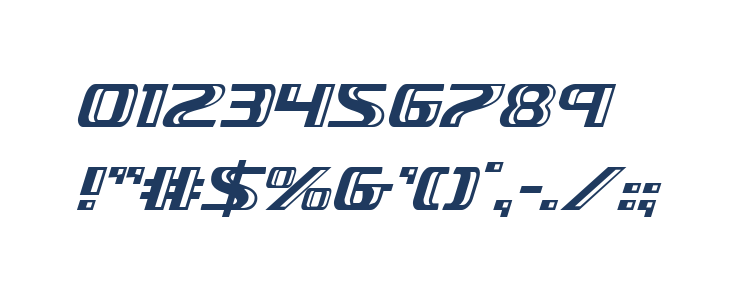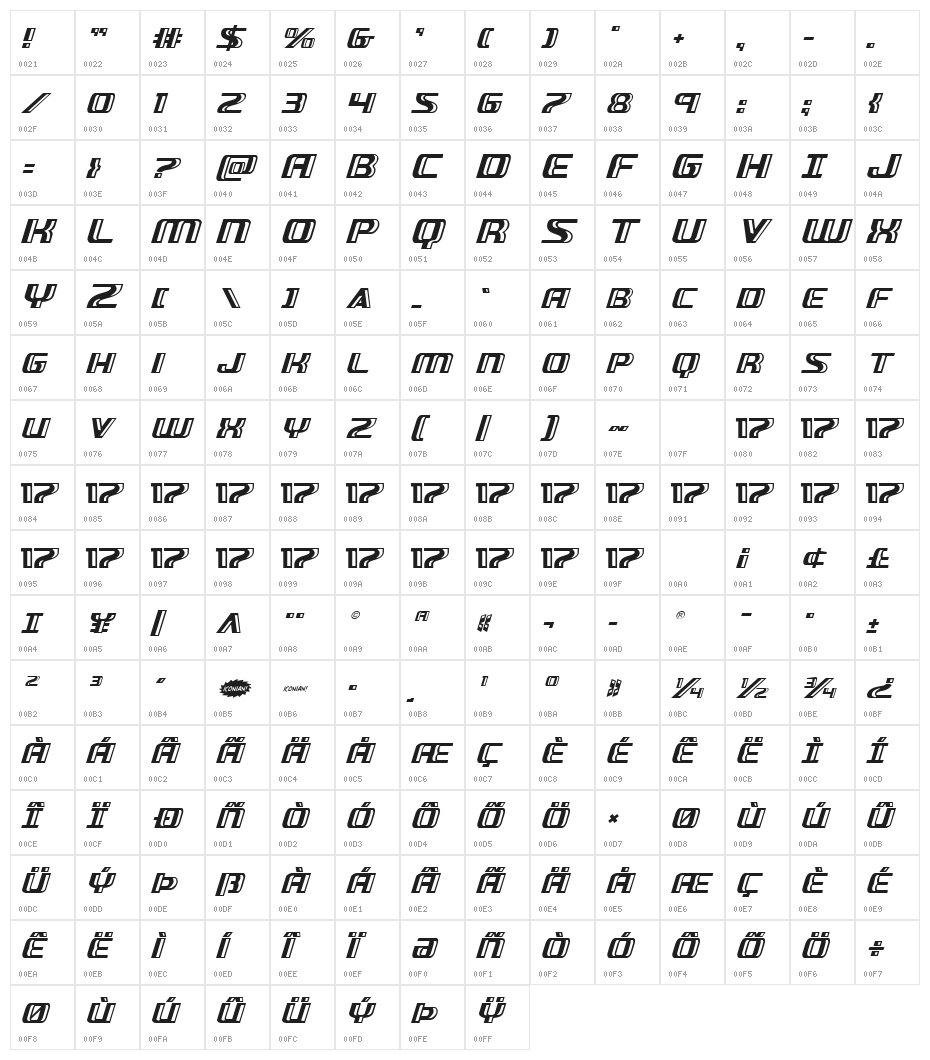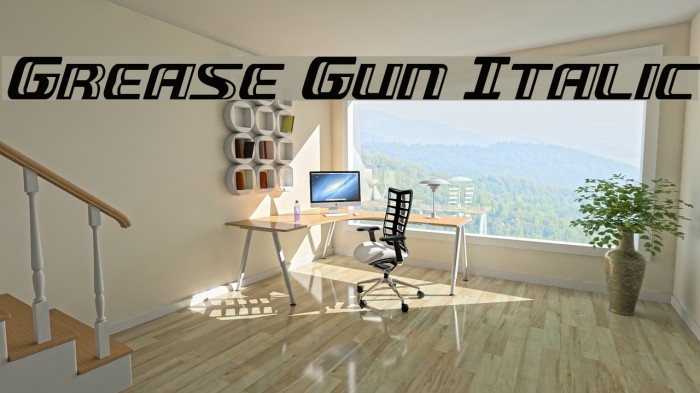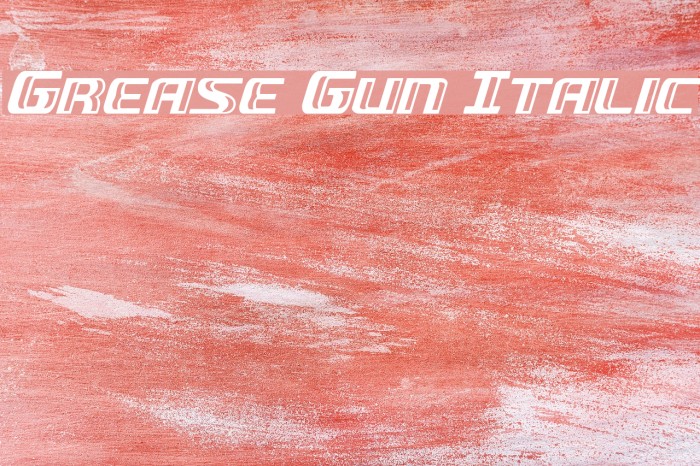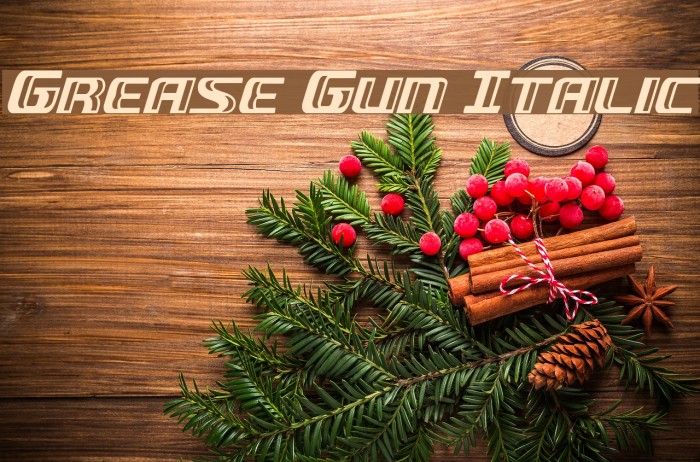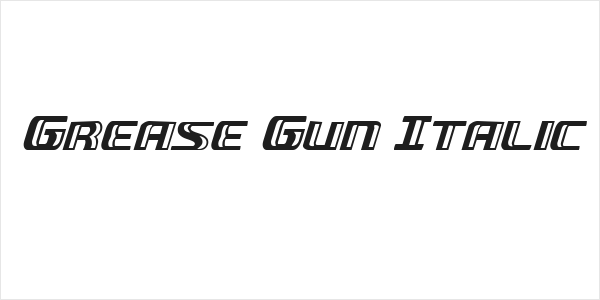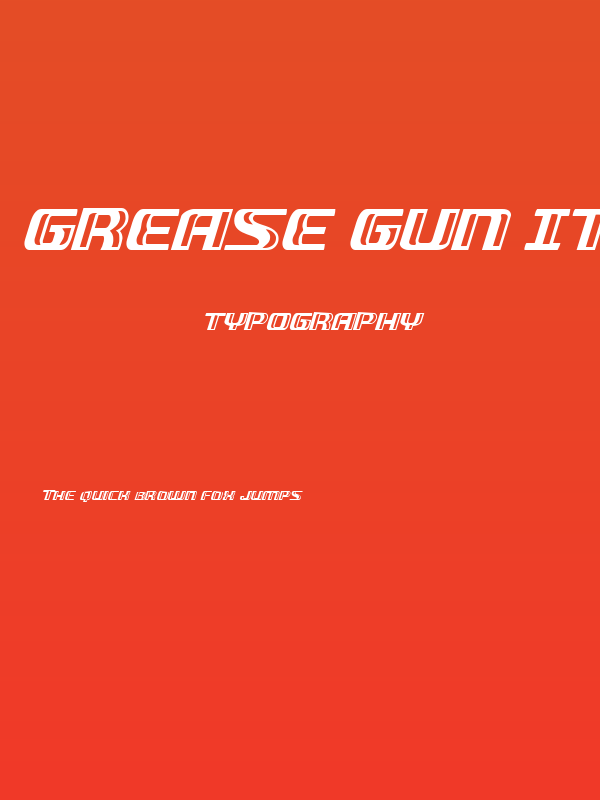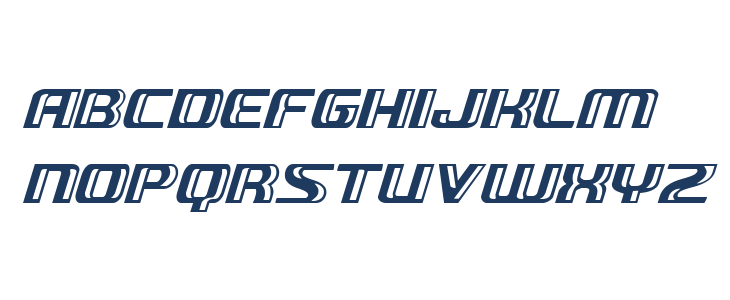
Grease Gun Italic Font
Grease Gun Italic Description
This font features a bold, italicized style with a distinct, futuristic appearance. The characters are designed with sharp angles and a dynamic slant, giving them a sense of motion and energy. The uppercase and lowercase letters maintain a consistent style, with the uppercase being slightly more pronounced. Numbers and special characters follow the same design principles, ensuring uniformity across all glyphs. The font's unique style makes it stand out, with a strong presence that is both modern and edgy.
| Proposed Projects | Ideal for projects requiring a modern, edgy look such as tech branding, video game titles, or futuristic posters. |